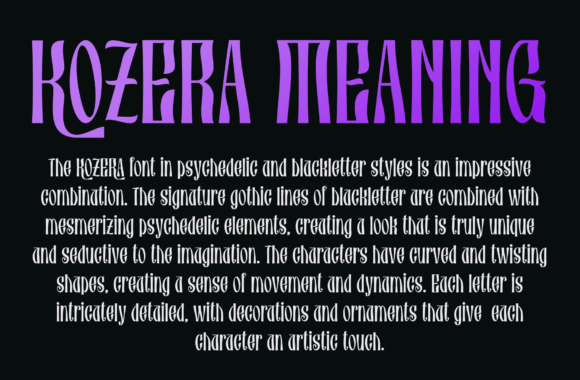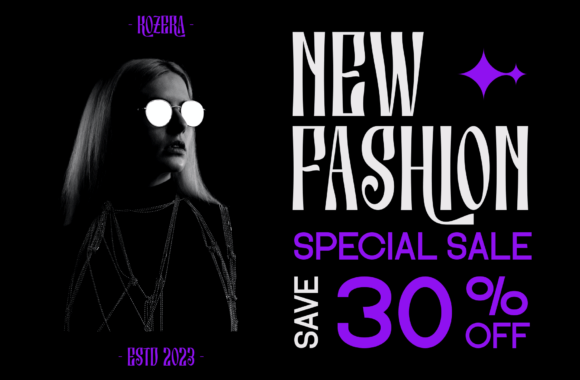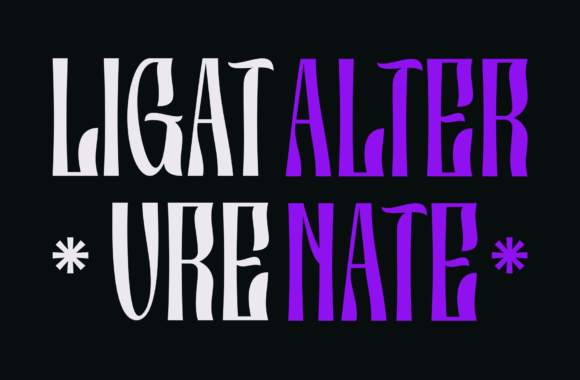
Introduction to Kozera Font
โ€œKozera a Display Psychedelicโ€ is a visual experience that features bright, colorful, and mind-bending patterns and designs.
๐Ÿ‘ค Author Marvadesign
Itโ€™s like a digital artwork that makes you feel like youโ€™re seeing the world in a new, exciting way The colors and shapes seem to move and change, creating a fascinating and trippy effect.
Key Features of Kozera Font